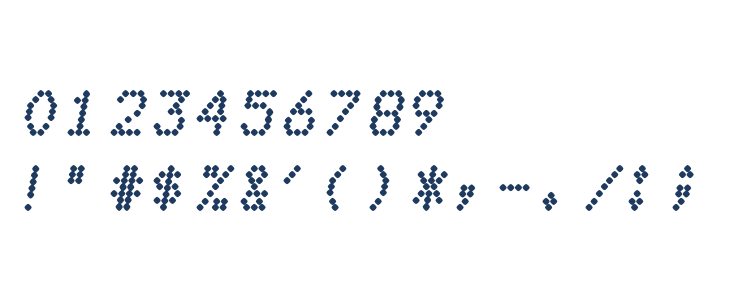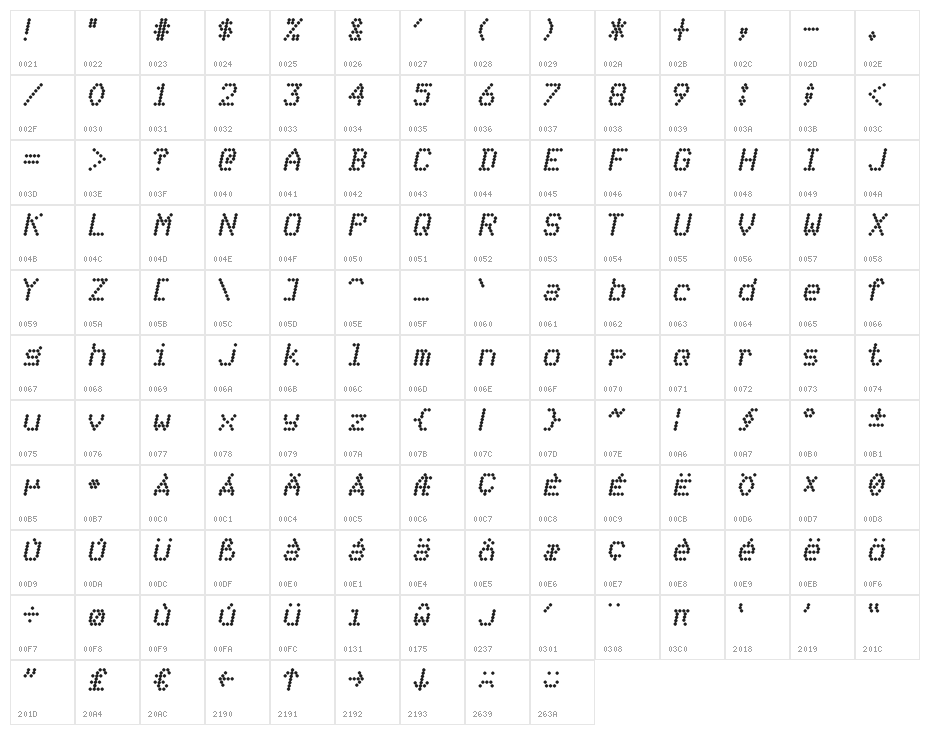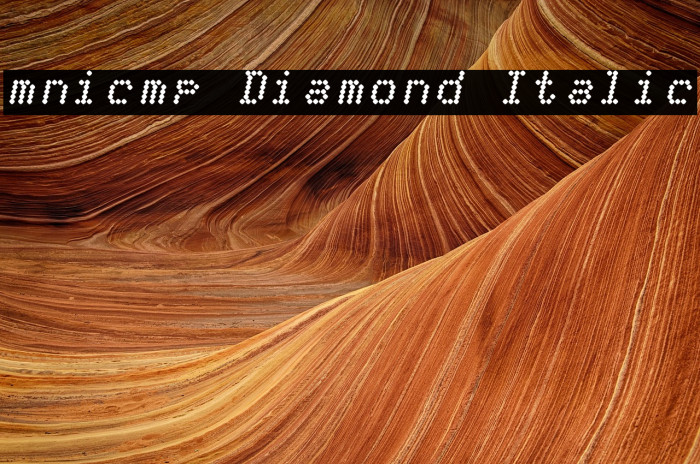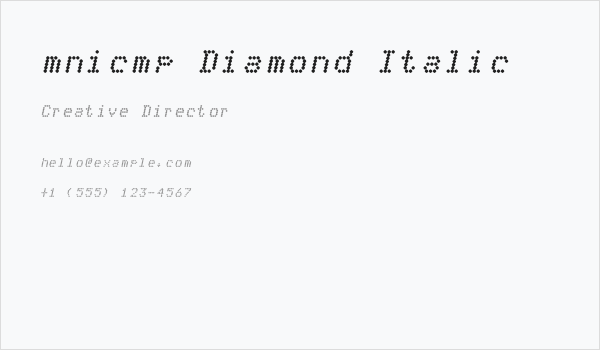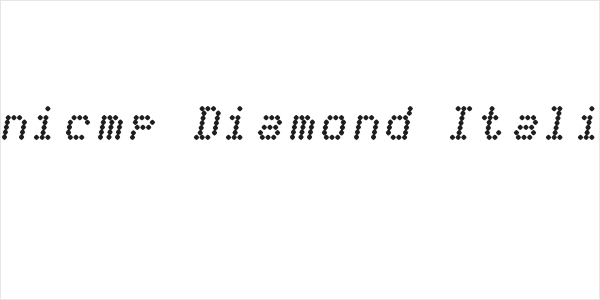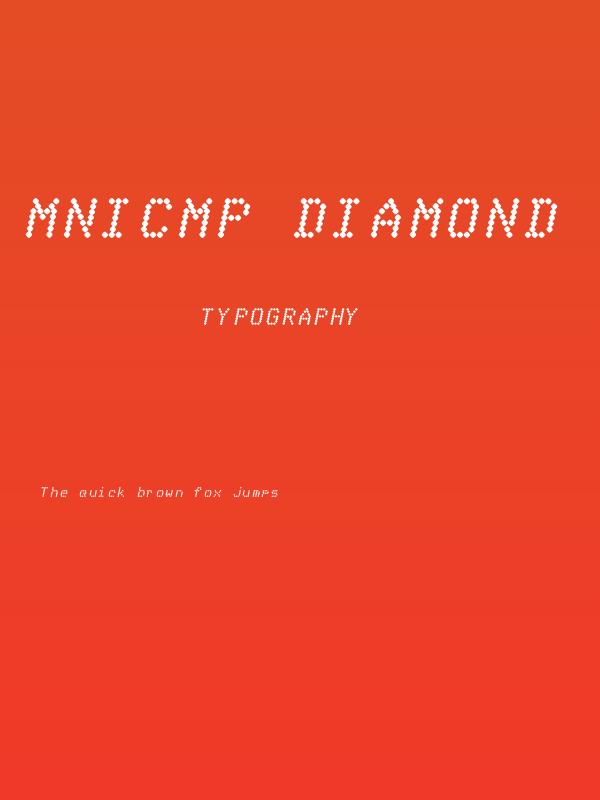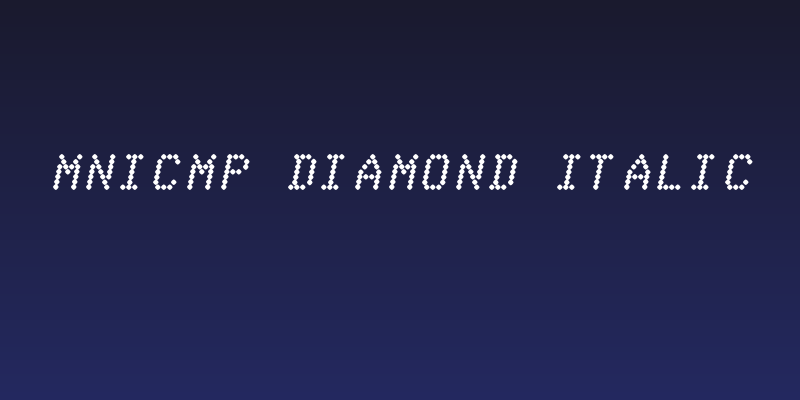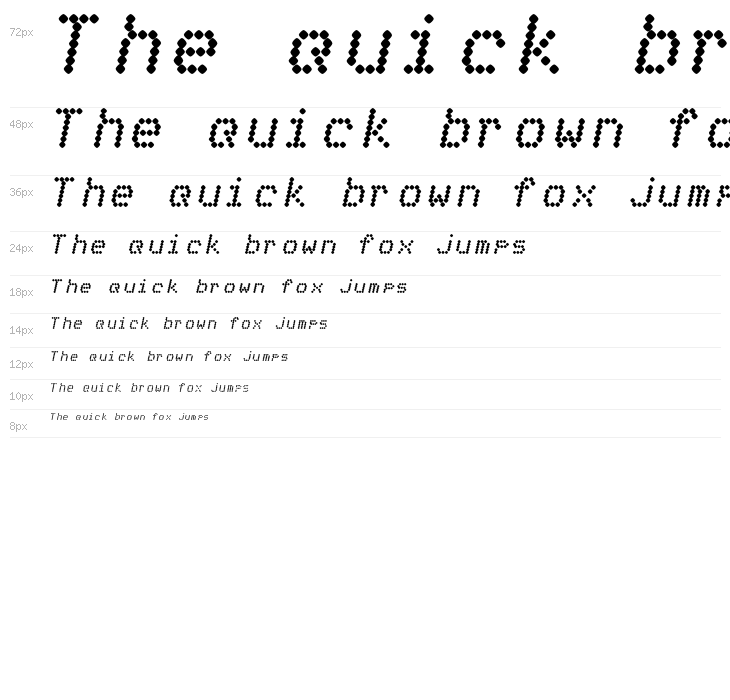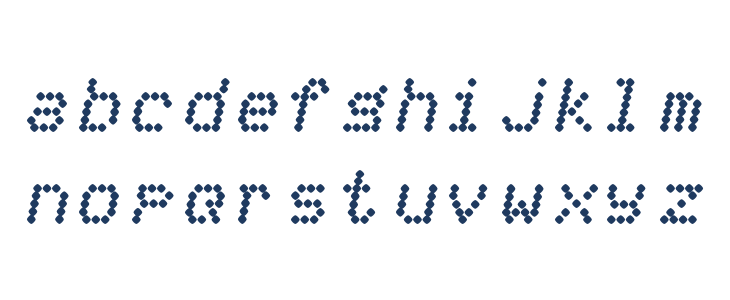
mnicmp Diamond Italic Font
mnicmp Diamond Italic Description
This font features a unique design where each character is composed of small diamond shapes, creating a dotted effect. The letters are italicized, giving them a dynamic and forward-leaning appearance. The overall style is playful and modern, with a decorative touch that makes it stand out. The characters are evenly spaced, ensuring readability while maintaining a distinctive look. The numbers and special characters follow the same dotted pattern, providing consistency across the font set. This font is ideal for creative projects that require a fun and eye-catching typeface.
Overall StyleModern, Decorative
Proposed ProjectsIdeal for posters, creative branding, event invitations, and digital art projects.